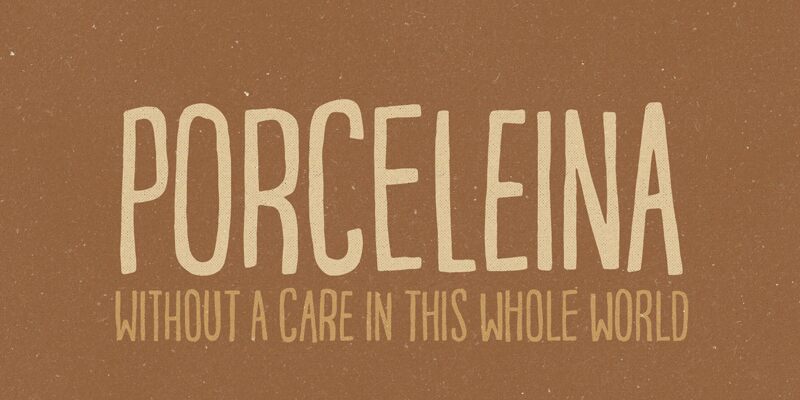
Porceleina is a bold, captivating display font that commands attention. Designed by Jakob Fischer, this condensed typeface exudes a unique, vintage-inspired aesthetic. The angular, geometric letterforms and strong vertical emphasis convey a sense of industrial-chic elegance, making Porceleina an ideal choice for headlines, branding, and eye-catching typographic compositions. Its commanding presence lends itself well to a range of design applications, from editorial spreads to product packaging and event posters.
Porceleina's striking visual impact and versatility make it a versatile tool for designers seeking to create impactful, memorable typographic designs.
The font's attention to detail and the variety of character alternatives make it a standout choice for design projects that require a touch of sophistication and personality. Whether used for headings, body text, or decorative elements, Porceleina's elegant aesthetic can elevate the overall visual impact of the design.